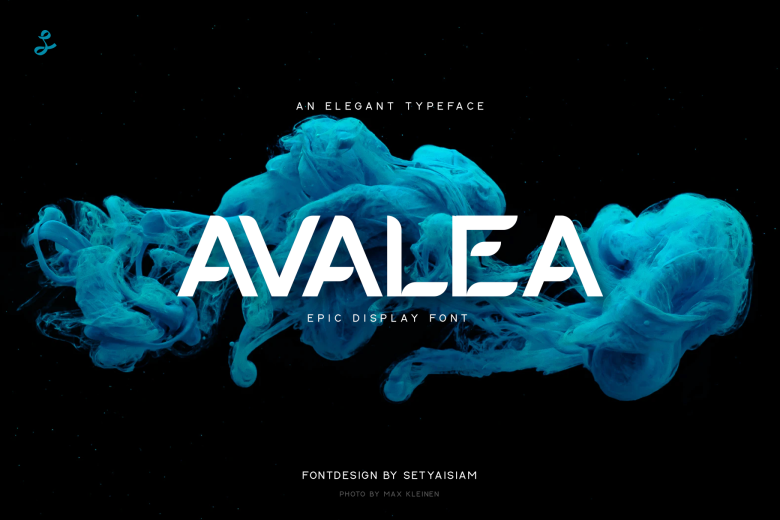
Avalea Font
Avalea is a simple lettered and modern display font. Masterfully designed to become a true favorite, this font has the potential to bring each of your creative ideas to the highest level!